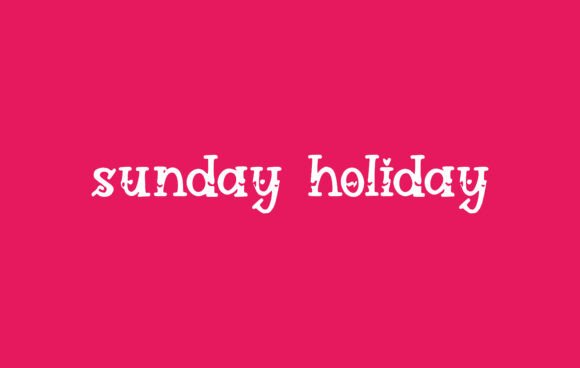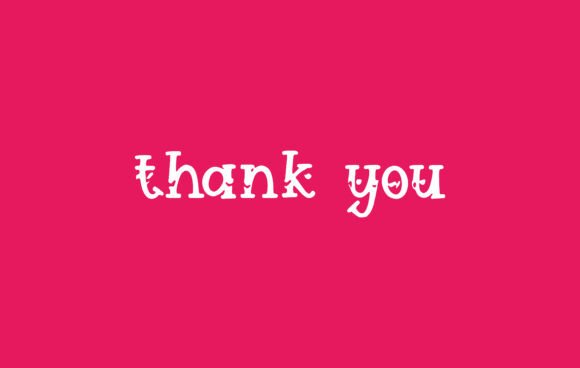
The Ultimate Guide to Chunkzilla Font: Elevate Your Designs with a Romantic Touch
I’ll never forget the moment I stumbled upon Chunkzilla font while working on a wedding invitation project for a dear friend. I had been searching for the perfect font for hours, trying out various options, but nothing seemed to fit the romantic and whimsical vibe I was going for. That was until I laid eyes on Chunkzilla – its elegant, handwritten strokes instantly captured the essence of the occasion. I knew right then and there that I had found my go-to font for all things lovely and creative.
An Honest Review of Chunkzilla Font
What I Love About Chunkzilla Font
- ✨ Authentic Handwritten Feel: Chunkzilla font boasts a genuine, handcrafted look that adds a touch of warmth and personality to any design.
- ✅ Legibility: Despite its elegant appearance, Chunkzilla is remarkably legible, making it perfect for both title and body text.
- 💕 Romantic Touch: The font’s subtle flair and curves evoke a sense of romance, ideal for wedding invitations, love letters, and other sentimental projects.
- 🎨 Versatility: Chunkzilla’s adaptability makes it suitable for a wide range of design applications, from magazine headlines to social media graphics.
While Chunkzilla font is exceptional, there are a few minor considerations to keep in mind:
- 🤔 Kerning: As with any font, kerning can be a bit tricky. Be sure to adjust the spacing to ensure optimal readability, especially when using larger font sizes.
- ⚠️ Overuse: Due to its captivating nature, it’s easy to overuse Chunkzilla font. Balance is key; mix and match with other fonts to create visual interest.
The Story Behind Chunkzilla Font
Chunkzilla font was crafted with love by a talented type designer who aimed to create a font that would evoke emotions and add a personal touch to designs. Inspired by classic handwritten scripts and a dash of modern flair, Chunkzilla was born to become a favorite among designers and crafters.
Q: Is Chunkzilla font suitable for body text?
A: While Chunkzilla font is legible, it’s primarily designed for display text. For body text, consider pairing it with a complementary font for optimal readability.